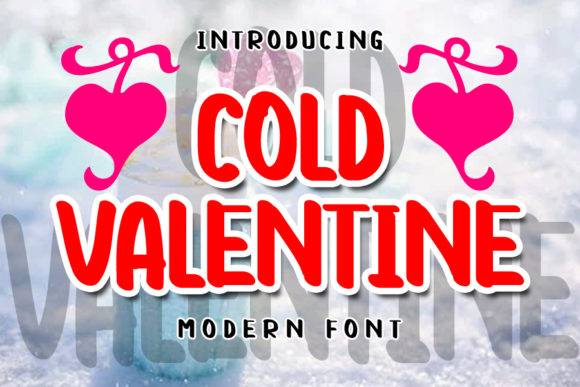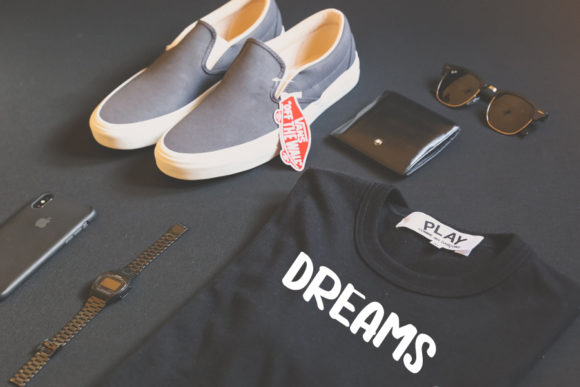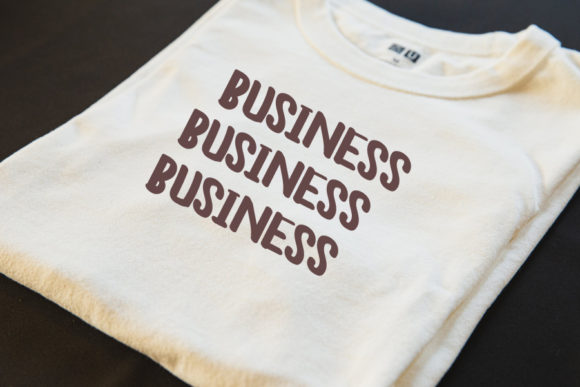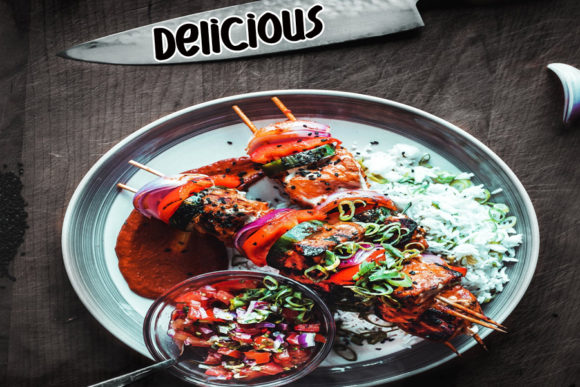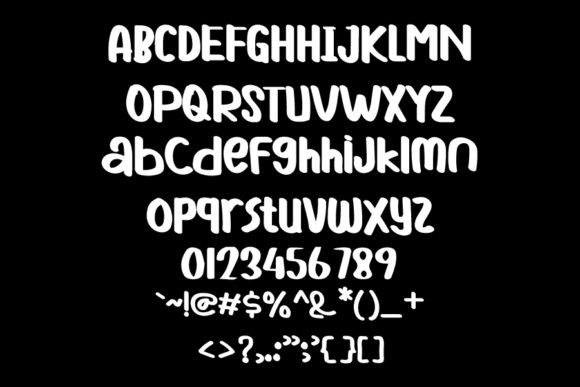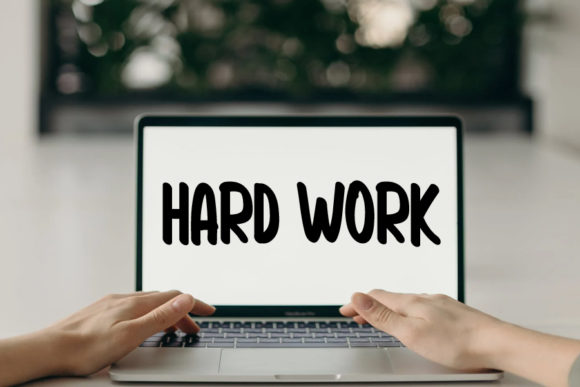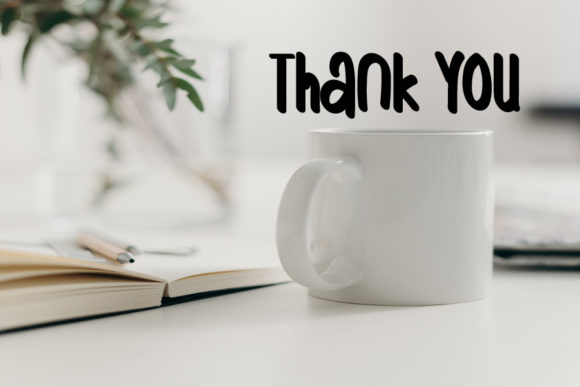
Cold Valentine Font
About Cold Valentine Font
“Cold Valentine” is a casual and laid-back script font that brings a relaxed and effortless charm to your creative projects. By adding this font to your favorite ideas, you’ll experience a vibrant transformation as they come to life with a touch of casual elegance.
Incorporating “Cold Valentine” into your designs allows you to effortlessly infuse a sense of approachability and warmth. Its flowing strokes and informal style make it a perfect choice for projects that seek to convey a friendly and easygoing vibe.
The versatility of “Cold Valentine” makes it suitable for a variety of design applications, including social media graphics, quotes, posters, invitations, and more. Its ability to capture the essence of casual chic ensures that your designs will radiate a sense of comfort and relatability.
As you integrate “Cold Valentine” into your projects, you’ll notice how it adds a touch of personality and character to your creative ideas. Its carefree spirit and handwritten charm create a visual experience that resonates with viewers and draws them in.
Incorporate “Cold Valentine” into your designs with enthusiasm, and you’ll witness how it breathes life into your favorite creative concepts, making them more engaging and inviting.
In summary, “Cold Valentine” is a casual script font that brings a sense of relaxed elegance to your creative ideas. Embrace its effortless charm and use it to add a lively and approachable touch to your designs, ensuring that they come alive with style and personality.